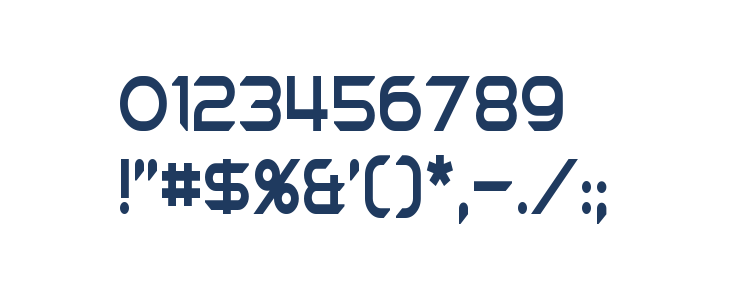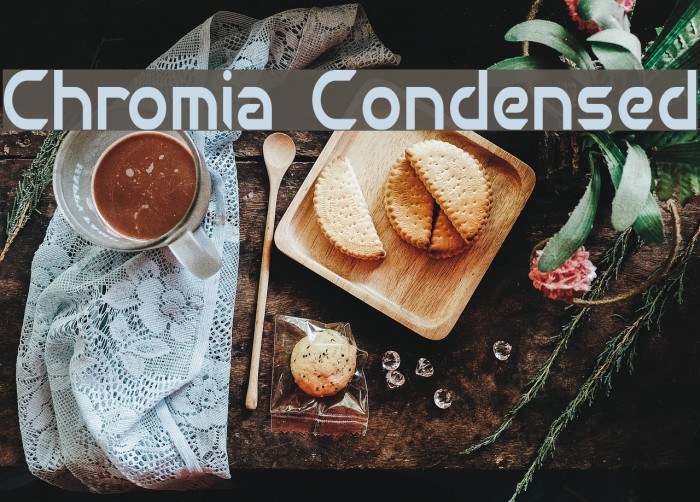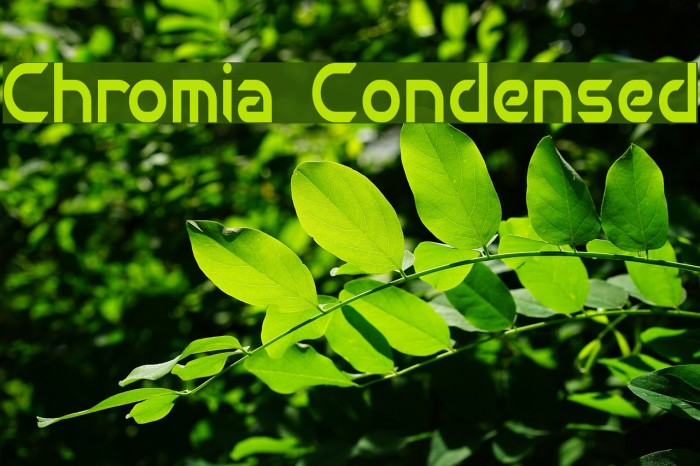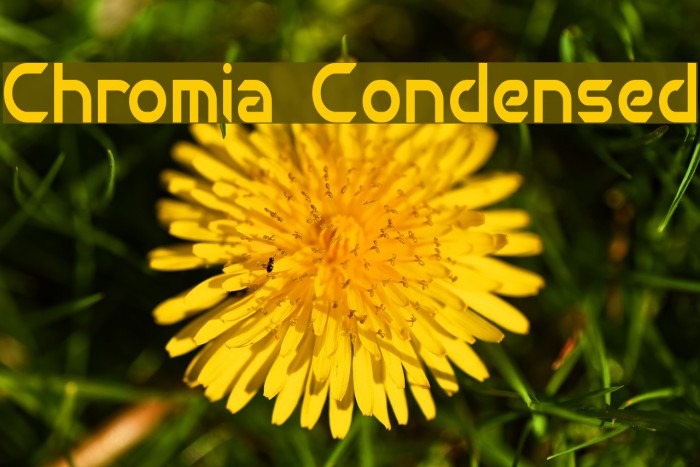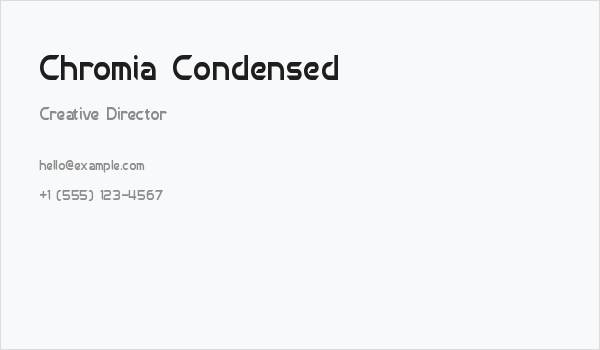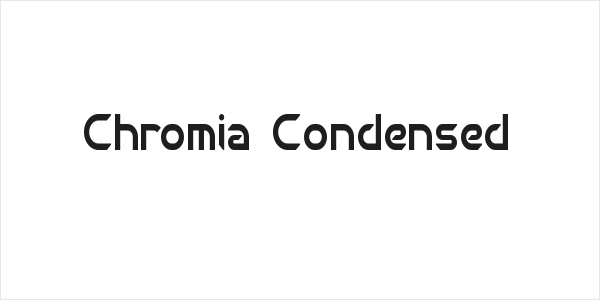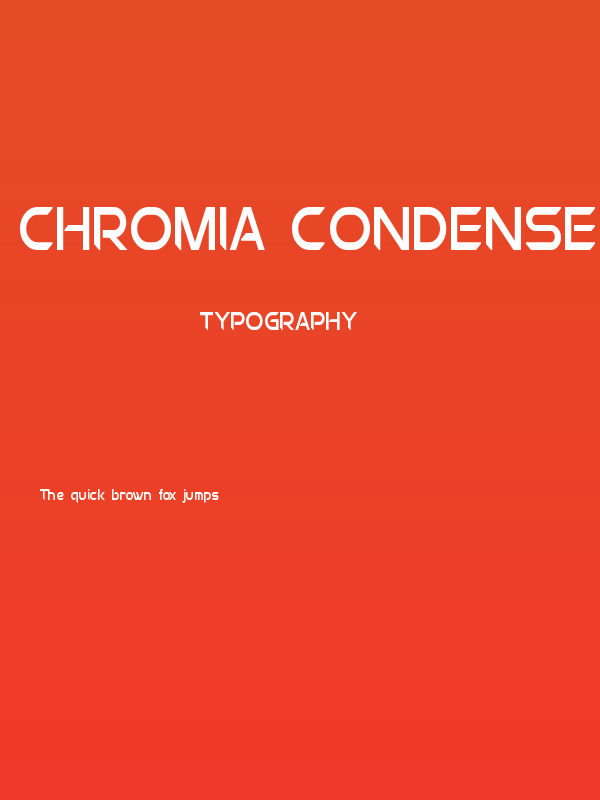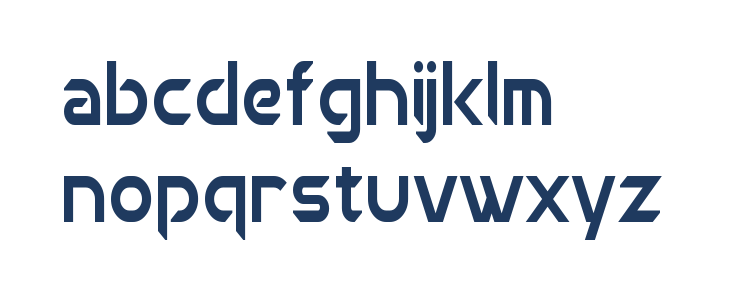
Chromia Condensed Font
Chromia Condensed Description
This font features a modern and geometric design with a condensed structure. The characters are bold and have a distinct angularity, giving them a futuristic and tech-inspired appearance. The uppercase letters are uniform in height, while the lowercase letters maintain a consistent baseline, enhancing readability. The numerals are clear and match the overall style, making them suitable for digital displays. Special characters are well-defined, maintaining the font's cohesive look. The sharp edges and clean lines make it ideal for projects that require a contemporary and sleek aesthetic.
Use CaseHeadlines, Logos, Digital displays
Proposed ProjectsIdeal for tech branding, digital interfaces, modern posters, and futuristic design projects.